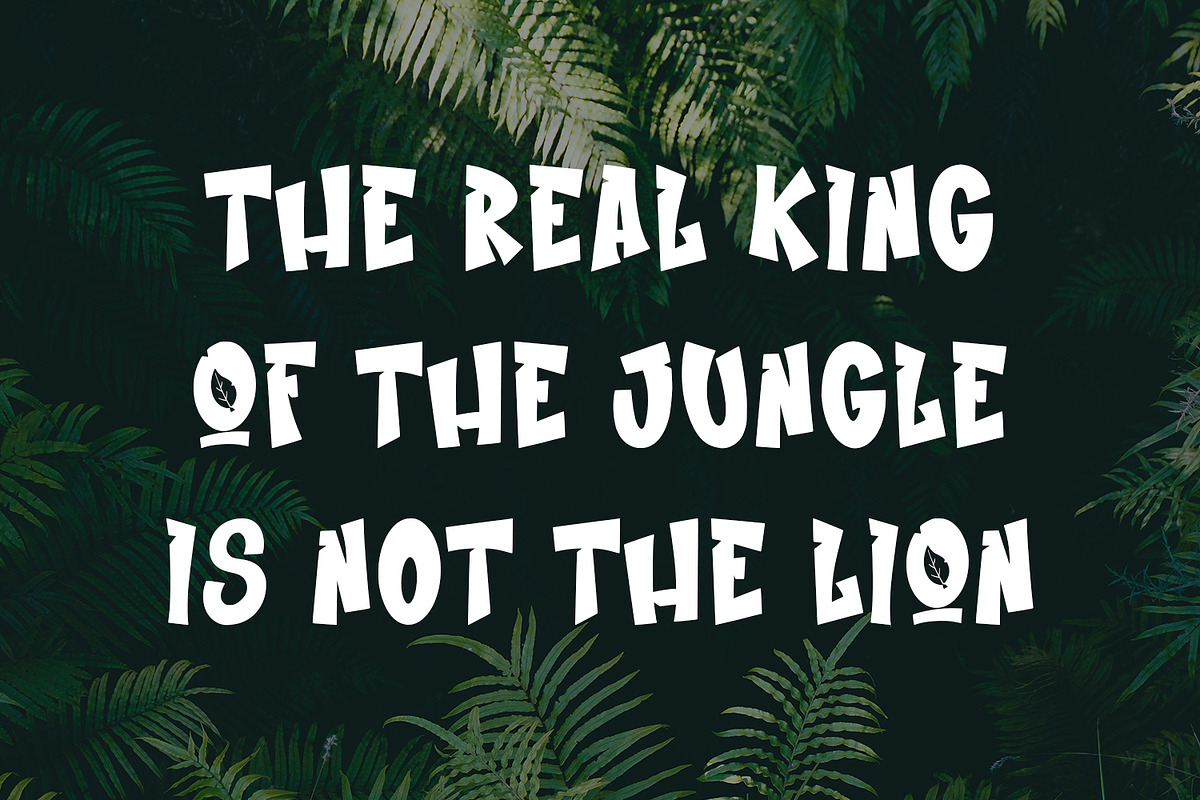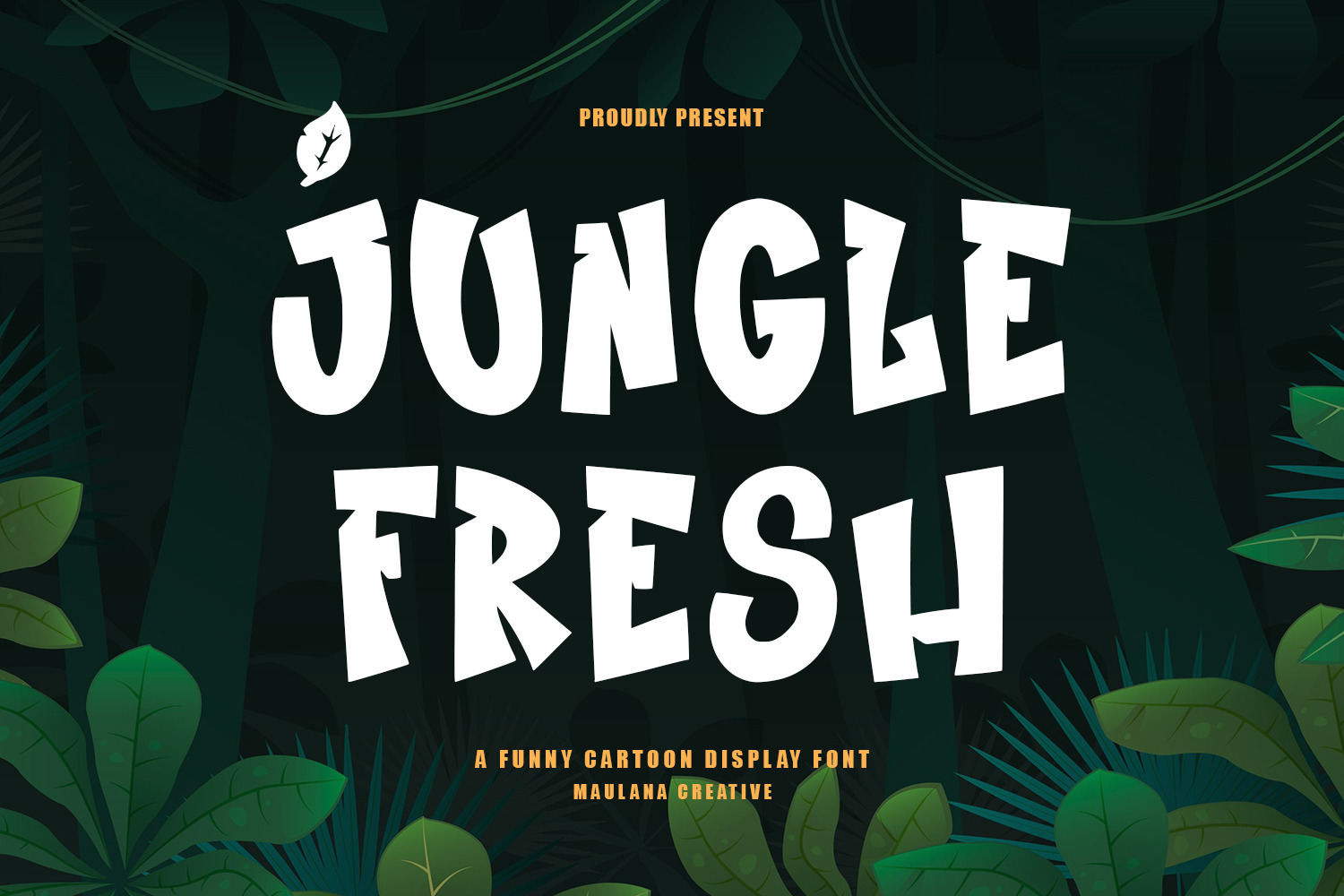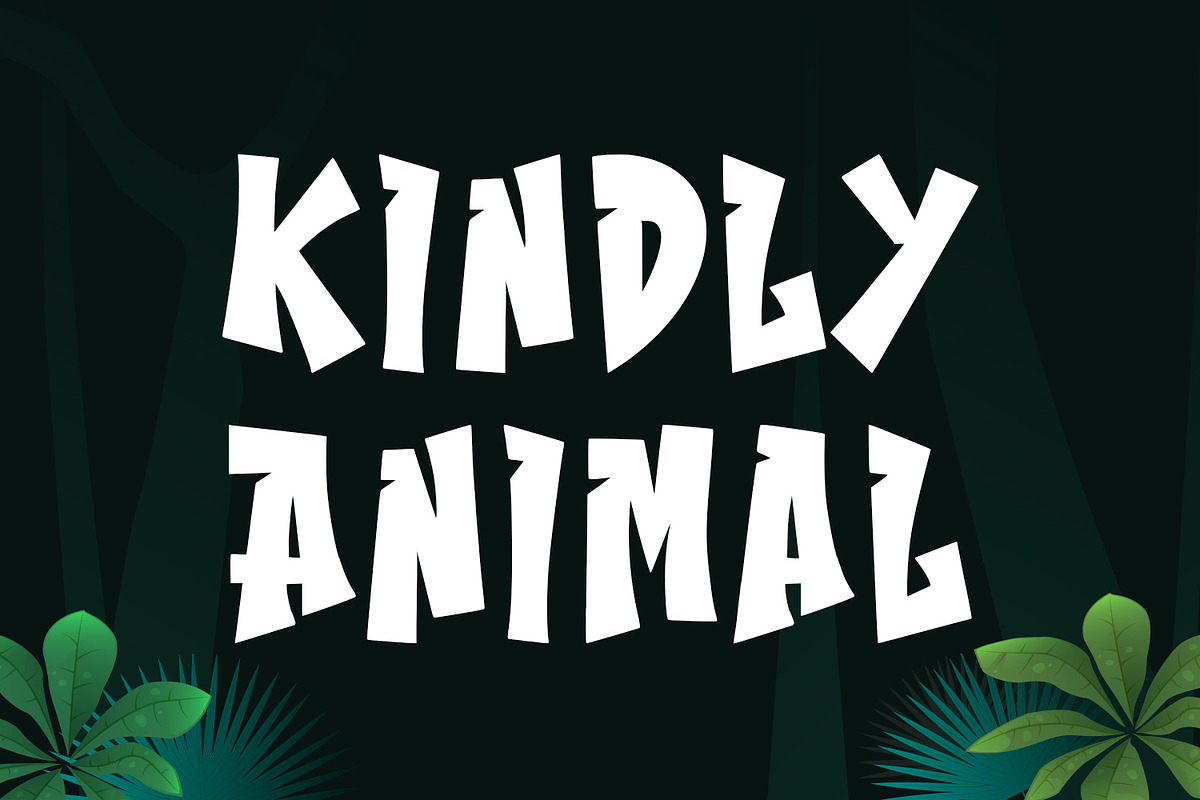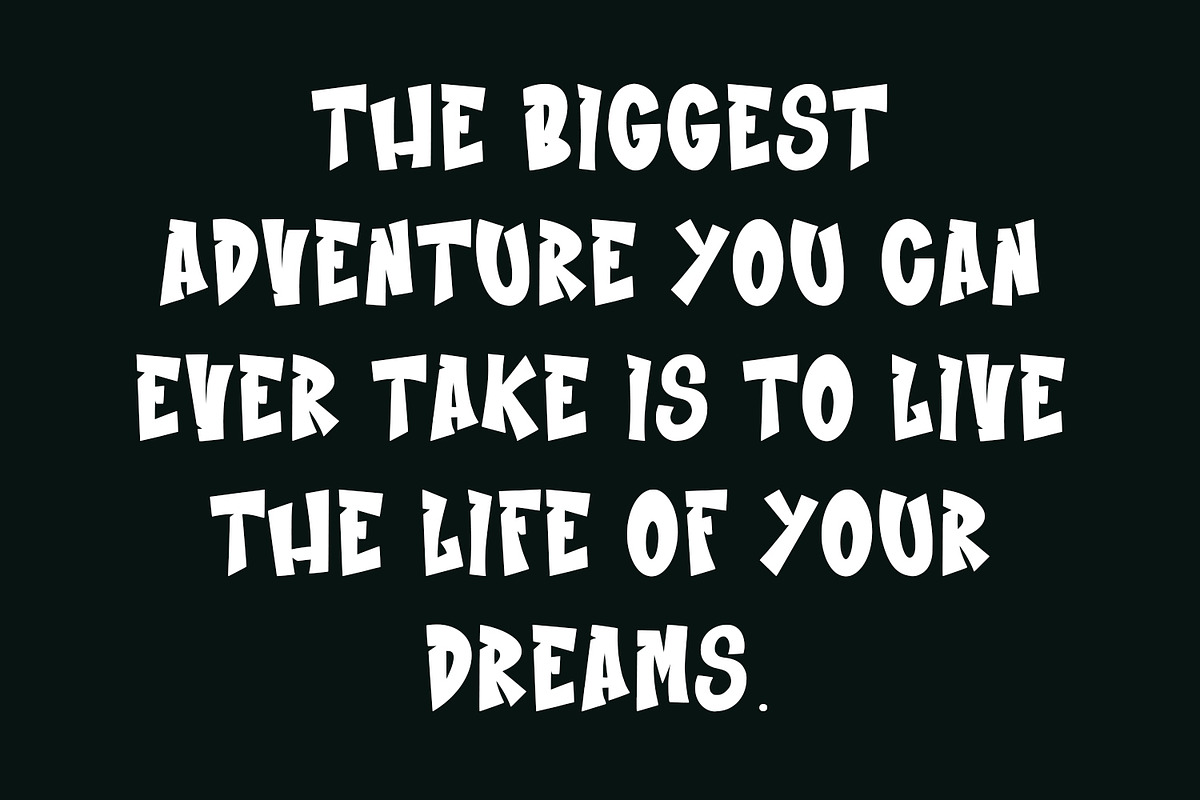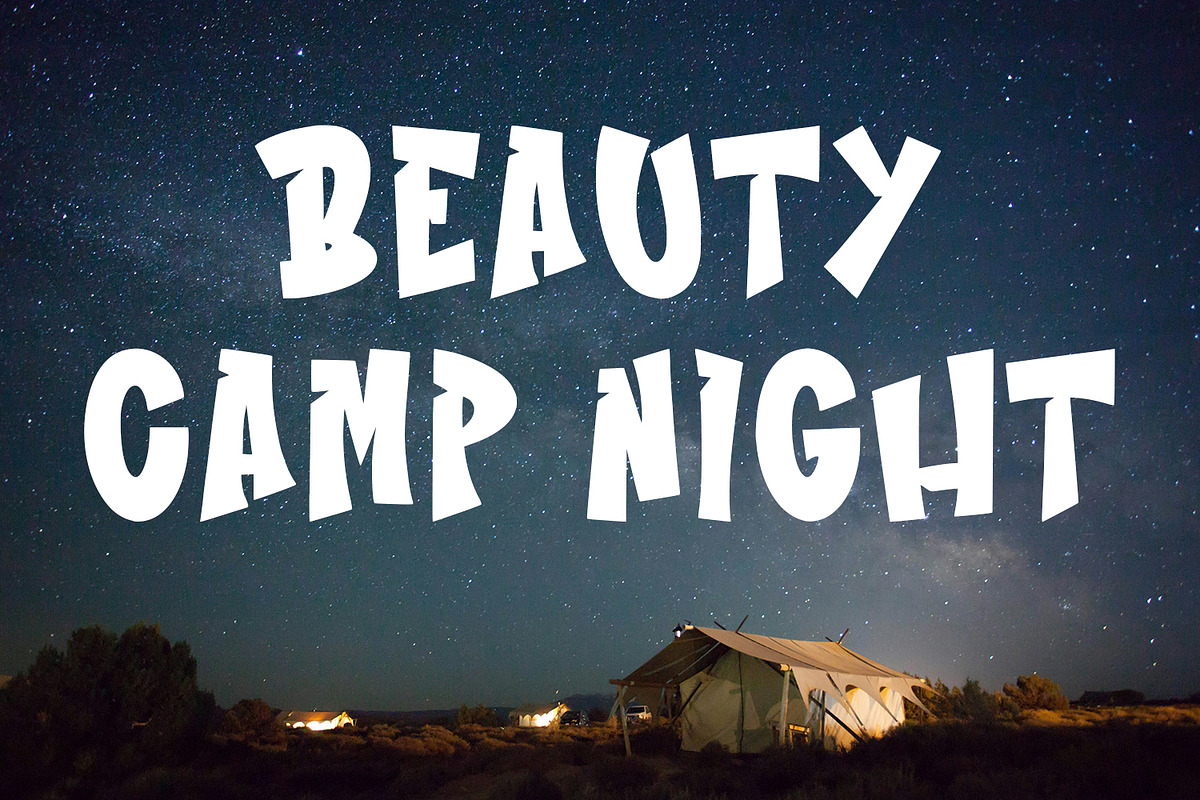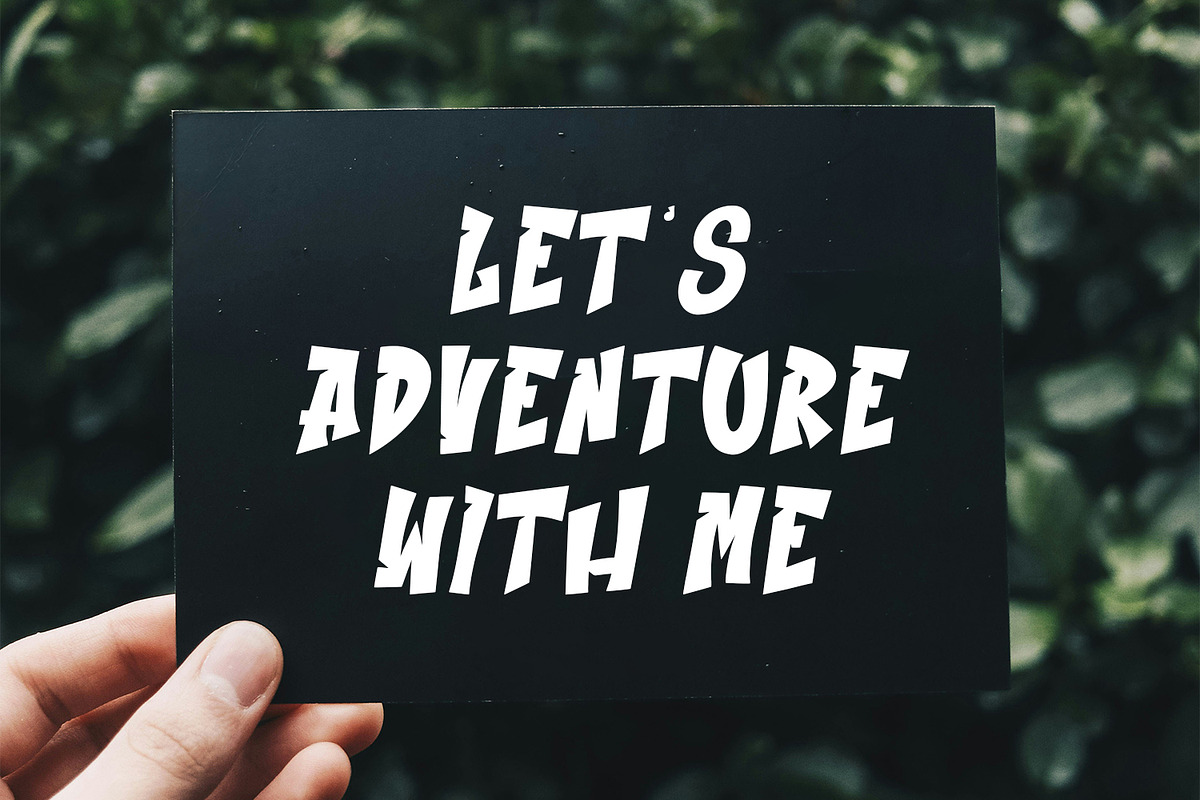
Jungle Fresh Funny Cartoon Fonts
Jungle Fresh funny cartoon display font. With bold tall and kids stroke, fun character with alternates. To give you an extra creative work. Jungle Fresh font support multilingual language. This font is good for logo design, Social media, Movie Titles, Books Titles, a short text even a long text letter and good for your secondary text font with sans or serif. Make a stunning work with Jungle Fresh font.